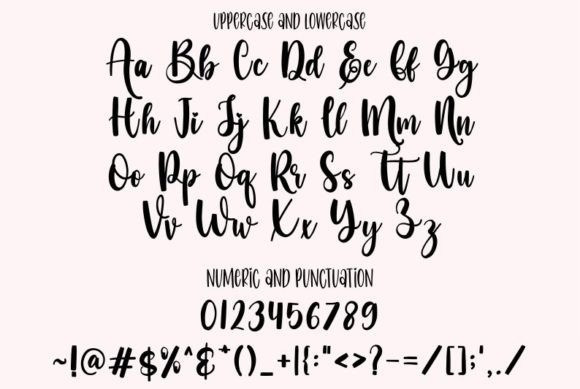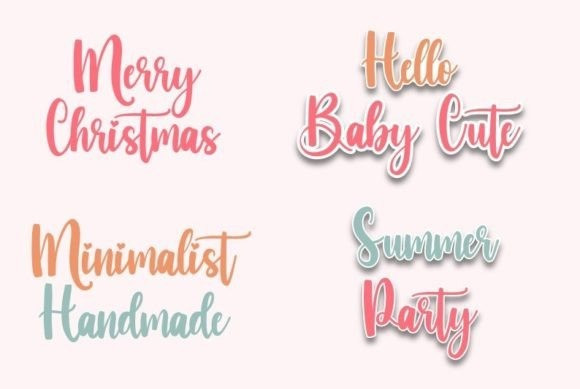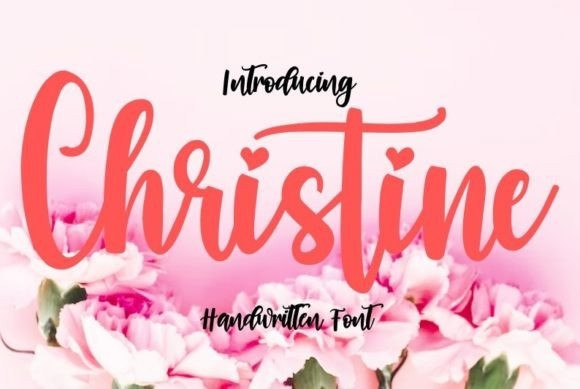
Christine Font
Christine Script Font is a beautiful, elegant, and unique calligraphy script font. Expertly designed to become a true favorite, this font has the potential to take your creative ideas to the highest level!
Christine is attractive because it is sleek, clean, feminine, sensual, and glamorous. Suitable for invitations, labels, restaurant menus, logos, fashion, makeup, stationery, novels, magazines, books, greeting cards/weddings, packaging, and labels.